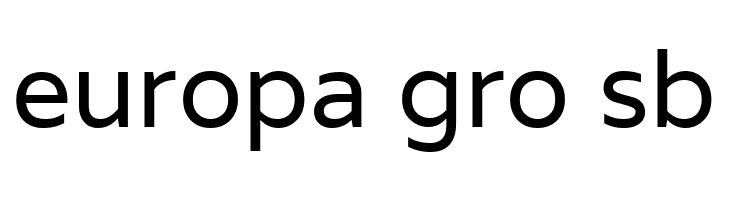
A bold, decorative font with a distressed, vintage appearance.
A bold, decorative font with a vintage, textured style ideal for standout designs.
A geometric, modular font with a bold, modern design.
A geometric, modular font with a bold, modern aesthetic.
A playful, hand-drawn font with irregular, whimsical strokes.
A bold, glitch-inspired font with a modern, distressed look.
A bold, slab serif font with strong, impactful characters.
Bold and italic serif font with a classic yet modern appeal.
A classic serif font with elegant and refined letterforms.
A bold, geometric font with high contrast and minimal spacing.
A decorative font with swirling, brushstroke-like characters, full of movement and energy.
A geometric, multi-line font with a futuristic and digital aesthetic.
A bold, geometric font with a modern, urban aesthetic.
A bold, distressed font with an urban, gritty aesthetic.
A quirky, hand-drawn font with irregular, organic shapes.
A bold, geometric font with playful, modern elements and strong visual impact.
A bold, geometric font with playful heart motifs and strong visual impact.
A bold, italicized font with geometric shapes and playful design elements.
A bold, geometric italic font with a playful and dynamic style.
An ornate and decorative script font with intricate loops and swirls.
A bold, gothic-style font with a blackletter influence.
An elegant and ornate script font with intricate flourishes and flowing letterforms.
A dynamic, slanted script font with bold, cursive letters.
A bold, graffiti-inspired font with a three-dimensional effect and strong contrast.
A modern sans-serif font with rounded edges and balanced proportions.
A clean, rounded typeface with a friendly and modern aesthetic.
A modern, rounded sans-serif font with a friendly and approachable style.
A modern, rounded font with clean lines and a friendly appearance.